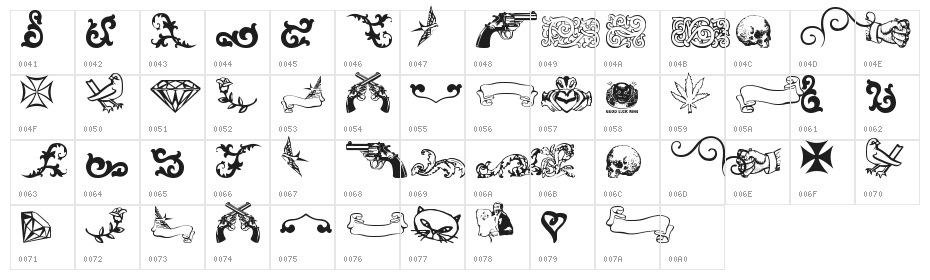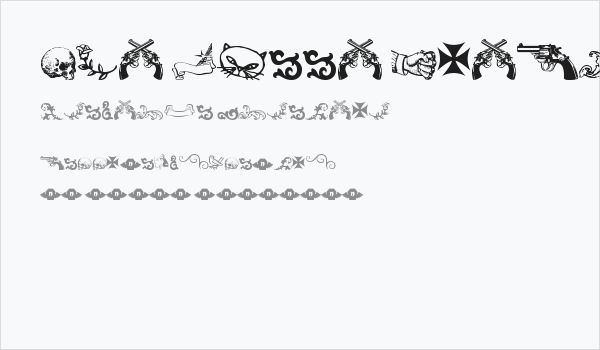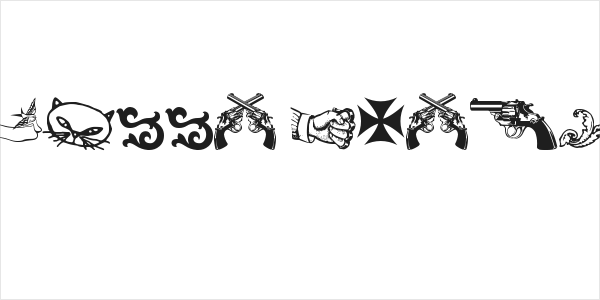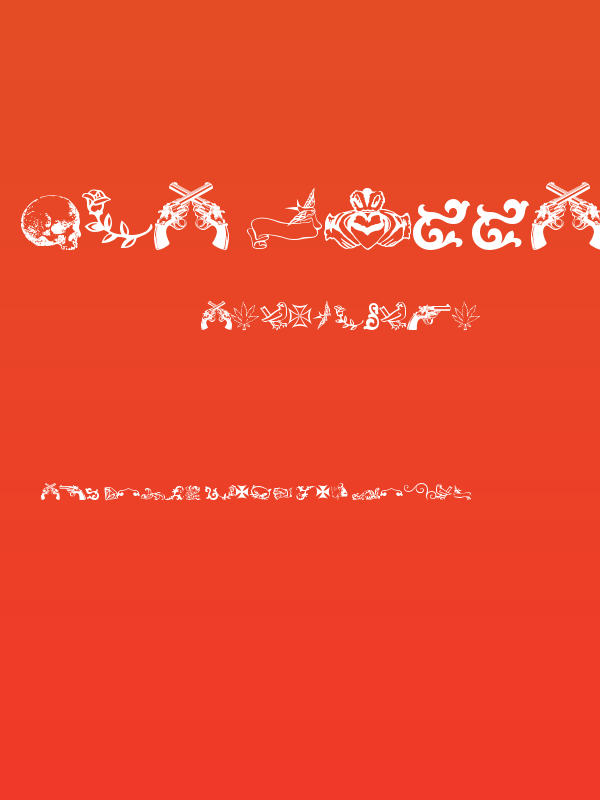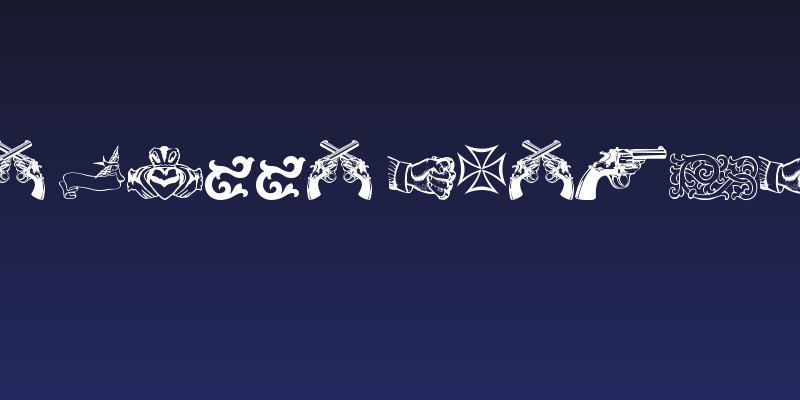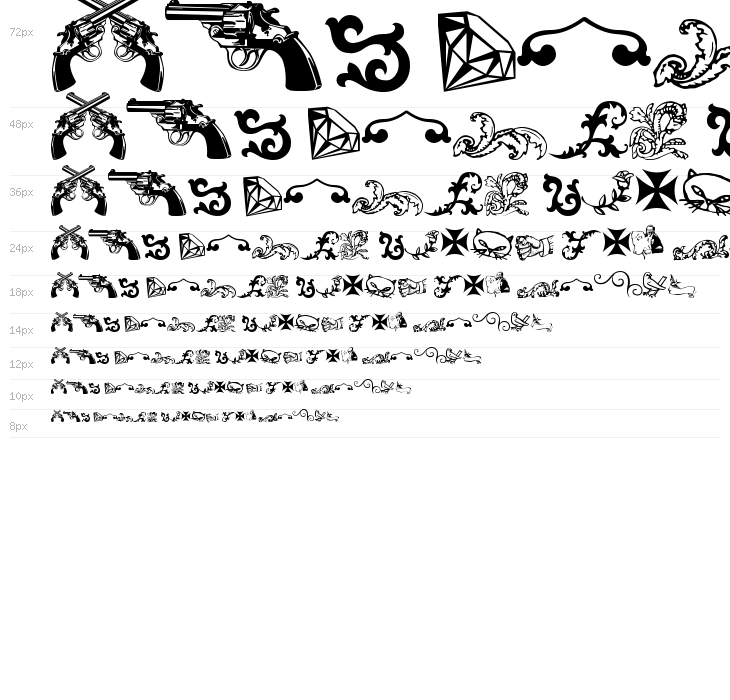
LRT Sweet Nothings Font
LRT Sweet Nothings Description
This font is a highly decorative and illustrative typeface, featuring a variety of intricate designs and motifs. Each character is represented by a unique graphic, including elements such as skulls, guns, birds, and ornate flourishes. The style is bold and artistic, with a strong emphasis on visual storytelling. The characters are not traditional letters but rather a collection of themed illustrations that can be used to create borders, embellishments, or thematic designs. This font is ideal for projects that require a strong visual impact and a touch of edginess.
| Use Case | Logos, Decorative elements, Themed designs |
| Proposed Projects | Ideal for tattoo designs, album covers, posters, and themed event invitations. |